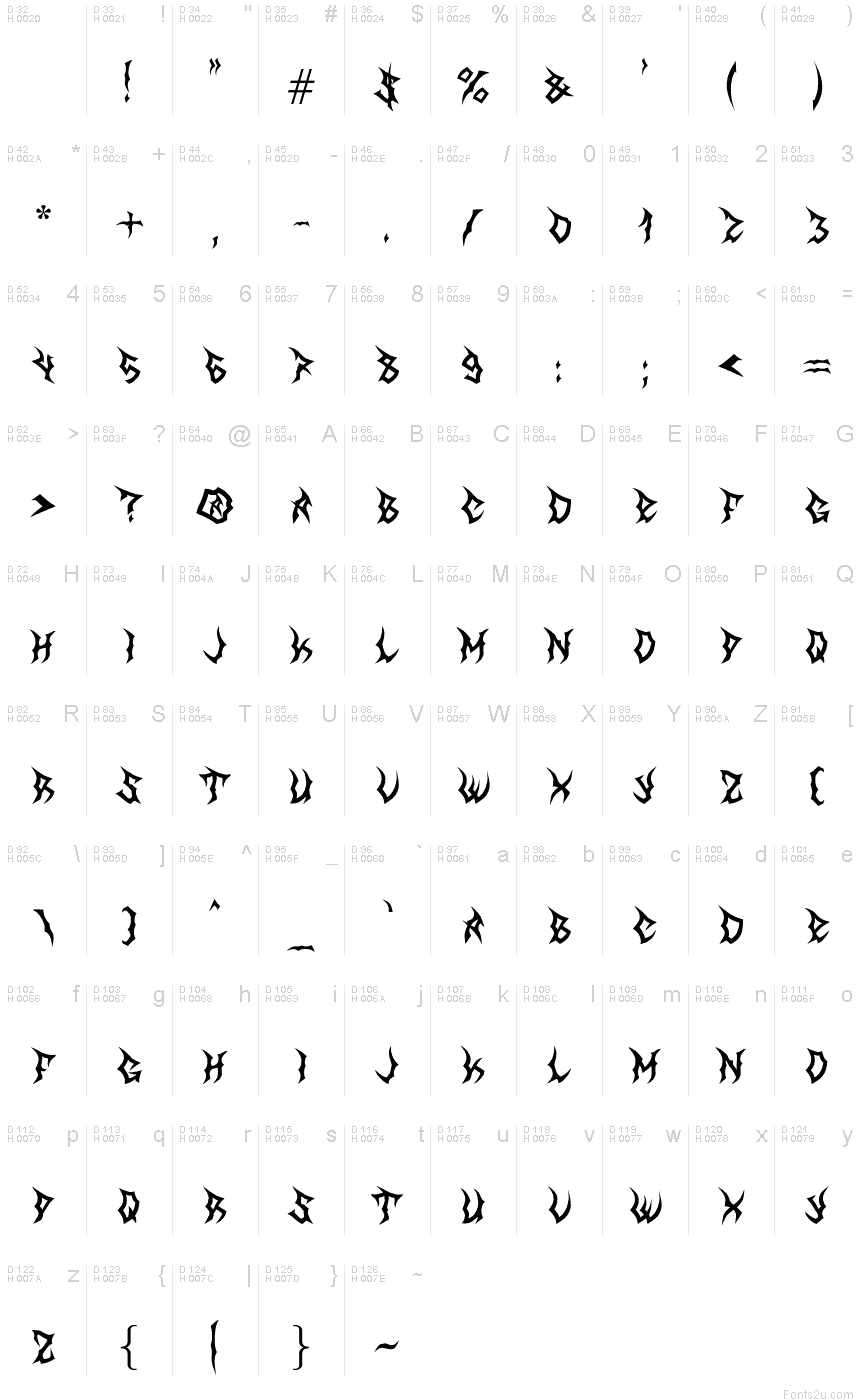
MB-The Great Reaper
MB-The Great Reaper by ModBlackmoon is a free modern Gothic display font built from broad, sweeping black shapes, narrow joins, and needle-sharp cuts. Its letters look carved and flame-tipped.
In design, it can turn a title into an emblem rather than ordinary text, especially for metal albums and horror games with a theatrical, menacing direction. The hooked strokes also suit occult event posters and dark fantasy merchandise, where the type can echo blades, wings, or curling smoke within the artwork. Across these uses, the shared link is a taste for aggressive silhouettes and supernatural imagery rather than polished visual restraint.